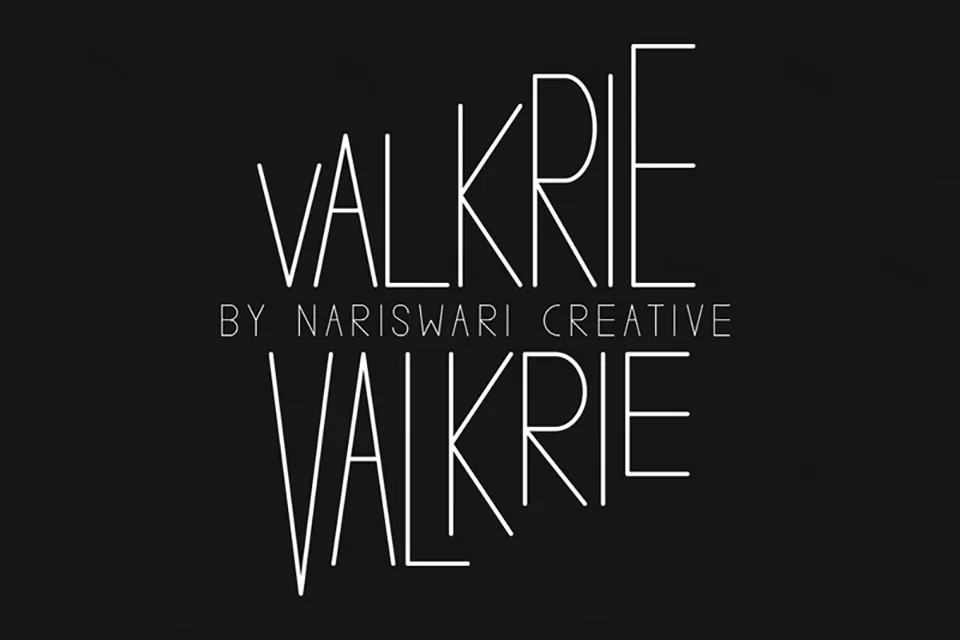
Valkrie Font
Valkrie Font is a thin and fresh sans serif typeface. It can easily be matched to an incredibly large set of projects, so add it to your creative ideas and notice how it makes them stand out!